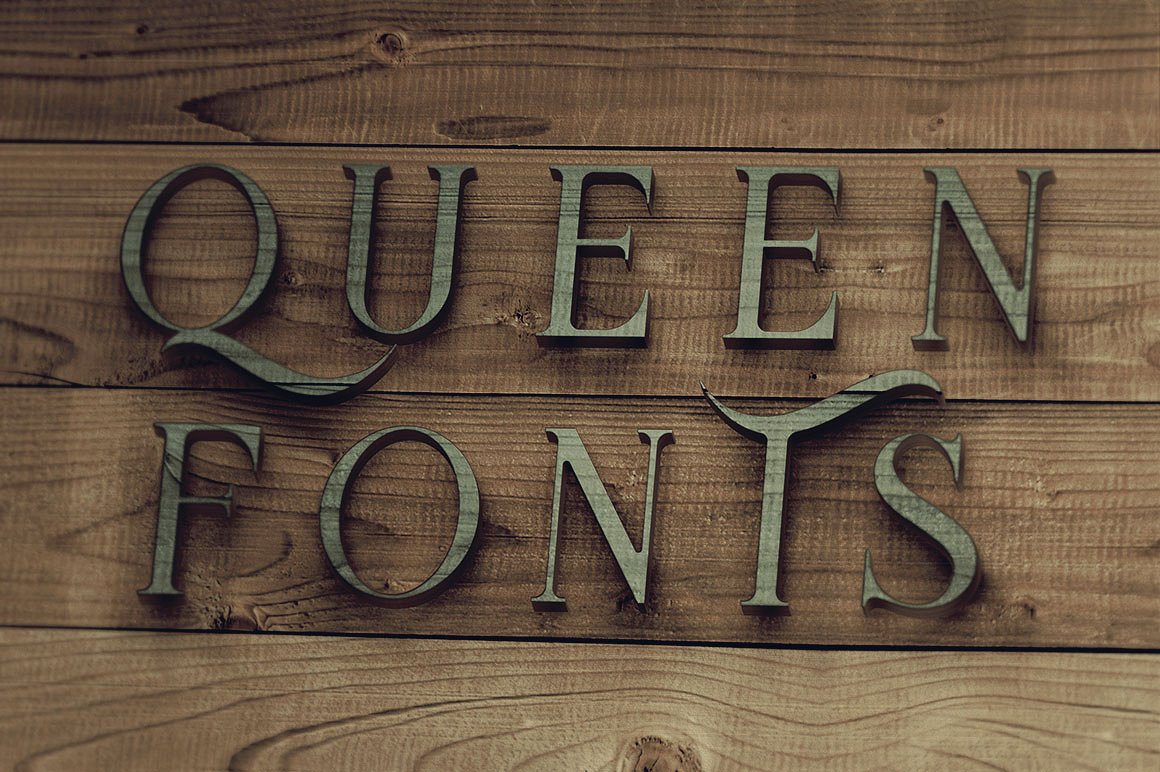
List Of Queen Fonts Ideas
It has all the vigor and spontaneity o. Font preview use the text generator tool below to preview queen font, and create. Queen font is a display and decorative font.
Queen Is Based On The Designer's Own Hand.
Font preview use the text generator tool below to preview queen font, and create. This typeface is perfect for an elegant & luxury logo,. Runsell’s font product is perfect for many of your projects like logos & branding, photography, invitations, watermarks, advertisements, product designs, stationery,.
Queen is based on the designer's own hand. Queen normal is the perfect font for all your fun designs. It is a handwriting font with a difference (just like affable).
Queen Font Download Queen Is The Perfect Font For All Your Fun Designs.
It is a handwriting font with a difference (just like affable). This font is designed by a freelancing graphic designer from. Instant downloads for 26 free queen fonts.